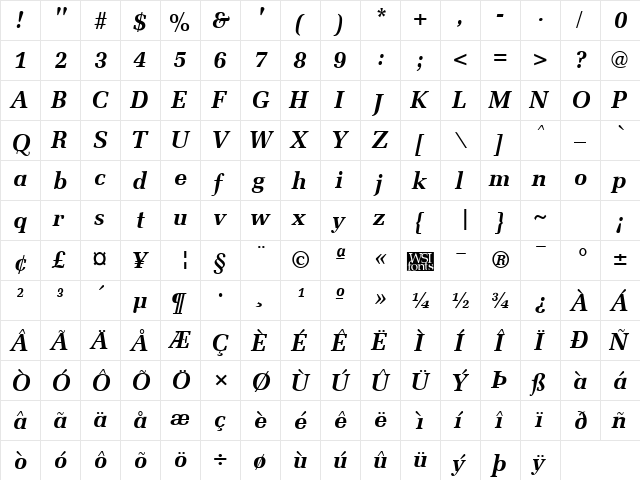
Memoir Bold Italic Font Preview
Design Context for Memoir Typeface
Memoir takes a measured approach to typography — its balanced proportions and neutral character make it a reliable workhorse for both digital and print work. Its italic angle brings a sense of urgency and motion to the letterforms. The heavy weight commands attention and anchors typographic hierarchies.
Pro Tip: Try Memoir for annotation and caption copy alongside an upright companion — the contrast in angle creates a dynamic but ordered typographic system.